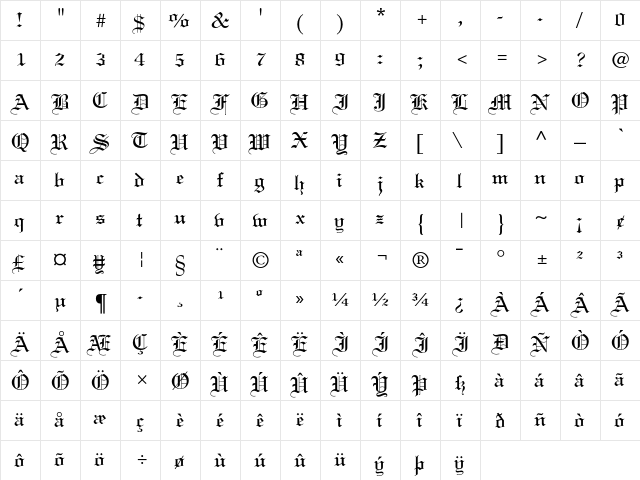
Linotext Regular
Design Context for Linotext Typeface
Linotext is a composed and adaptable typeface that performs quietly and consistently across a wide range of design contexts.